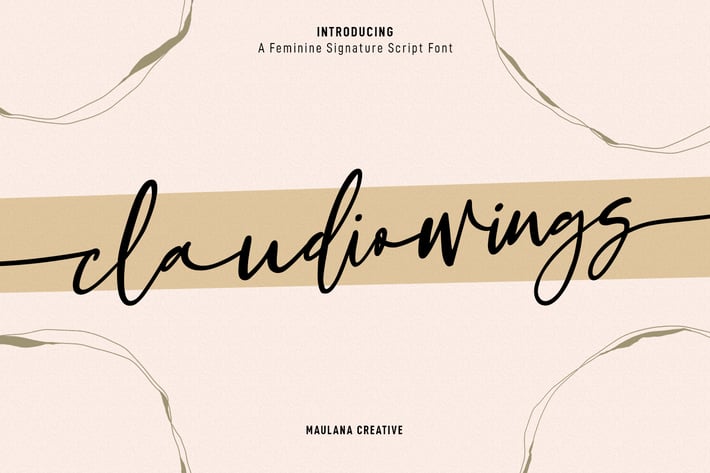
Claudio Wings Feminine Signature Script Font
Claudio Wings is a slanted fancy modern script font. With begin and end swash also has contrast stroke, fun character with a bit of ligatures and has a two files lowercase alternates. To give you an extra creative work. Claudio Wings font support multilingual more than 100+ language. This font is good for logo design, Social media, Movie Titles, Books Titles, a short text even a long text letter and good for your secondary text font with sans or serif. Make a stunning work with Claudio Wings font.